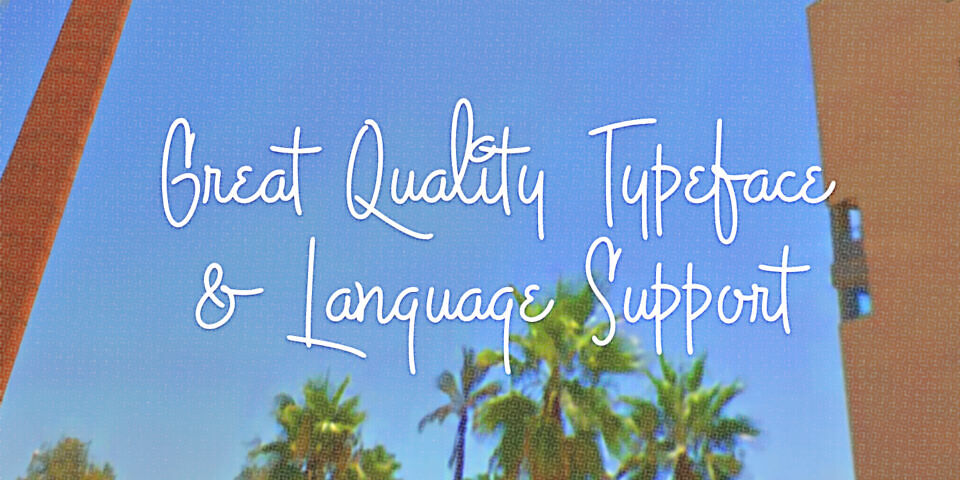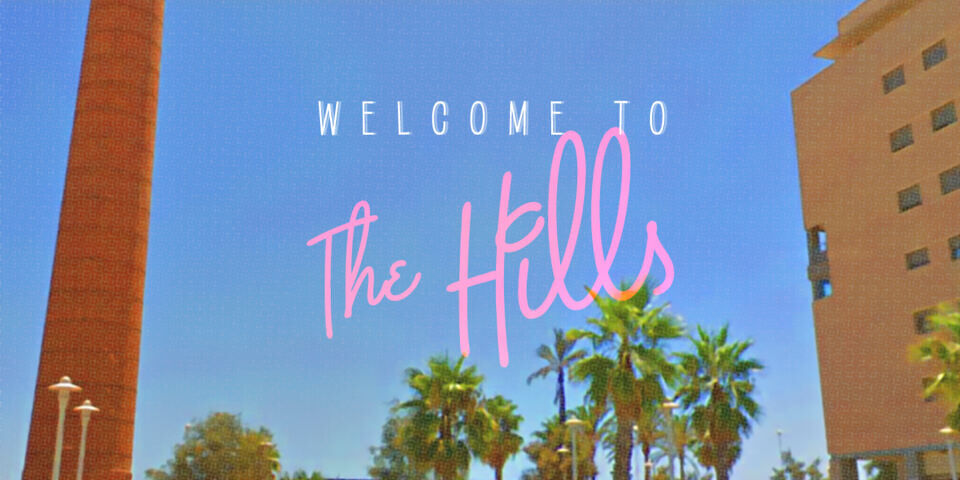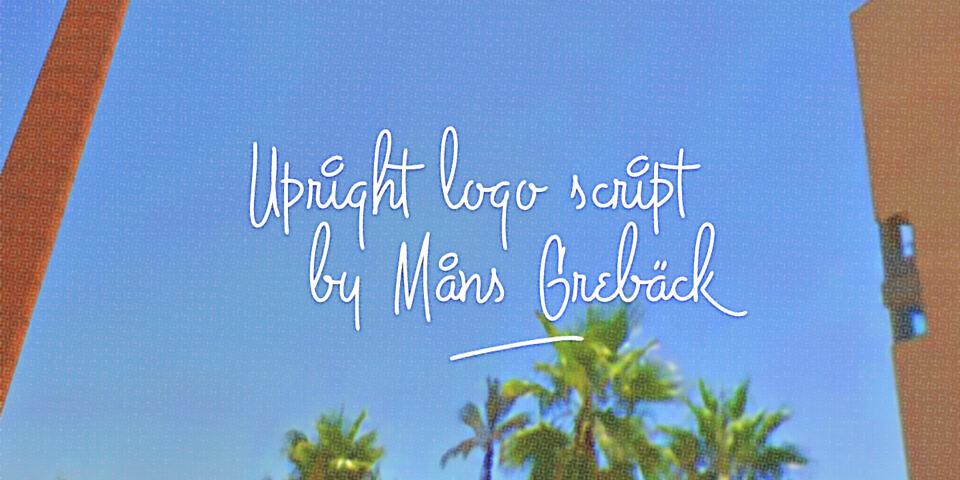
The Hills by Måns Grebäck is a script typeface capturing the sunny, retro charm of the 1950s. Perfect for logotypes, this high-quality font features well-balanced, medium-weight letterforms that exude a casual yet elegant vibe.
With 350 glyphs and support for multiple languages, it’s versatile for branding, invitations, and posters. Its smooth, handwritten style adds a nostalgic touch, making it ideal for projects needing a vintage, approachable aesthetic. The Hills is a timeless choice for creative designs.